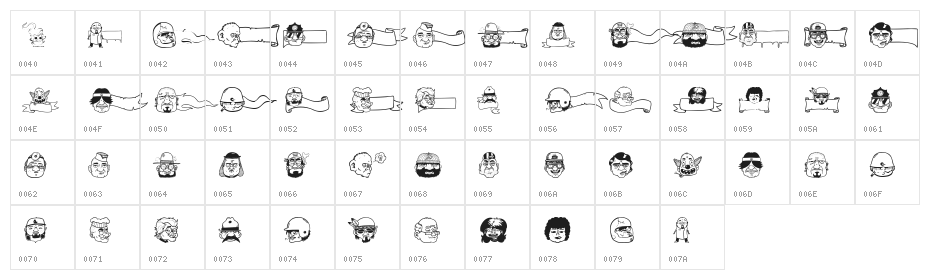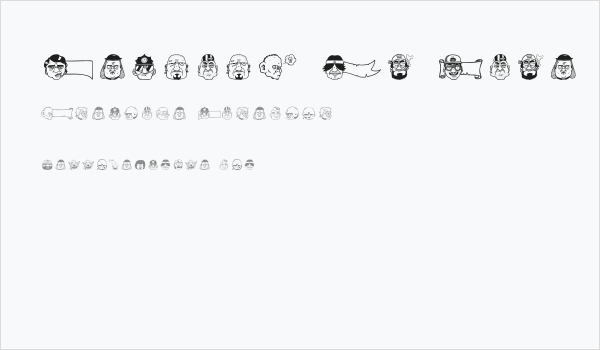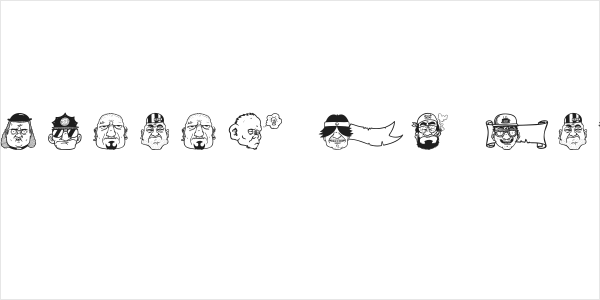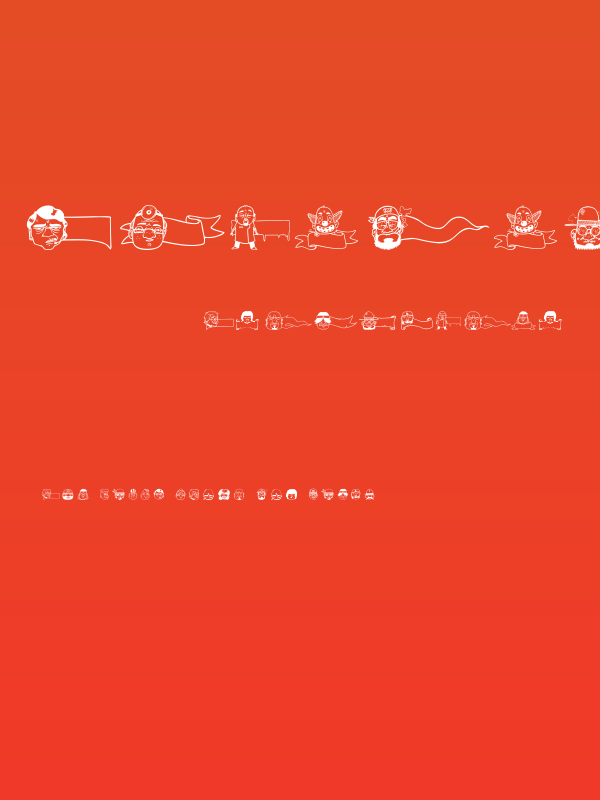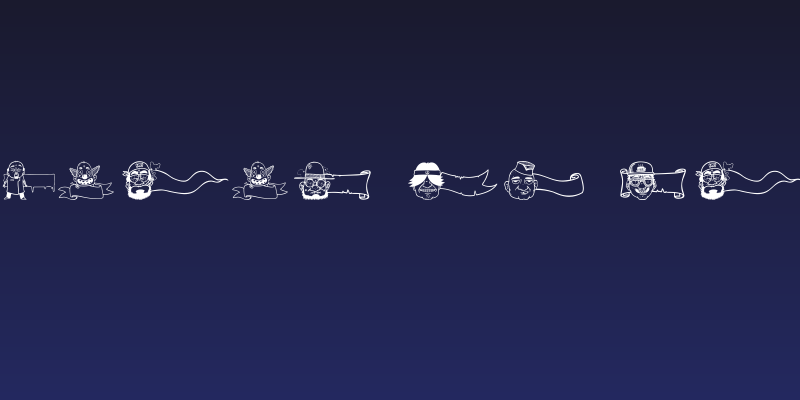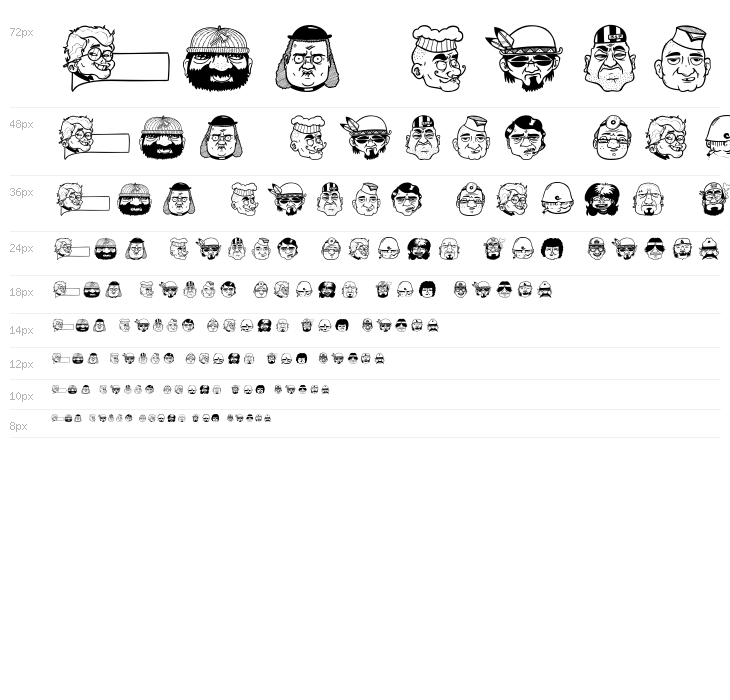
Meaning Of Life Font
Meaning Of Life Description
A highly decorative and whimsical font composed entirely of illustrated cartoon faces and characters, each letter and symbol represented by a unique drawing. The glyphs are playful, hand-drawn, and lack traditional typographic structure, focusing instead on expressive, humorous portraits.
| Overall Style | Whimsical, Playful, Cartoonish, Decorative |
| Use Case | Logos, Headlines, Posters, Themed event materials |
| Proposed Projects | Children's books, comic titles, party invitations, playful branding, novelty posters. |